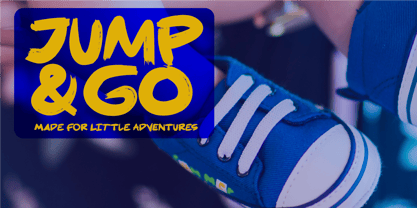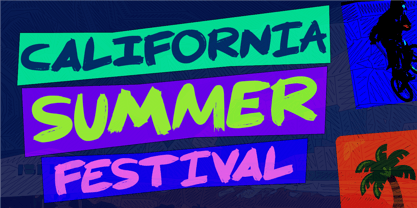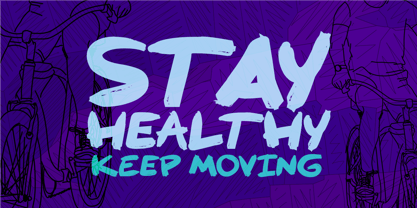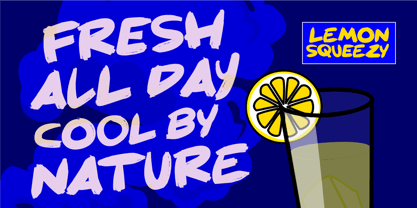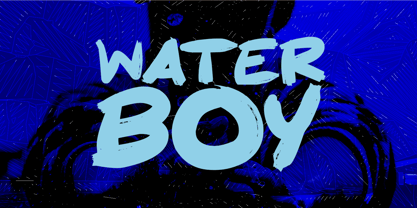
Waterboy
by Epiclinez
The Waterboy Font Family was designed by Aldy Sidik and published by Epiclinez. Waterboy contains 1 styles. More about this family
Waterboy is a bold and energetic display font that embodies a hand-painted feel, playful attitude, and vibrant personality. Its expressive strokes and dynamic shapes make it ideal for designs requiring a confident, youthful, and adventurous aesthetic. Drawing inspiration from summer days, surf culture, children's brands, outdoor adventures, streetwear, and the relaxed vibes of the West Coast, Waterboy excels in various applications. It is perfect for logos, apparel, posters, packaging, stickers, product branding, sports graphics, children's products, and social media designs. Use Waterboy for striking headlines, engaging slogans, vintage-inspired graphics, surf and skate branding, children's footwear, summer campaigns, adventure projects, and any design that benefits from a lively, handmade touch.
Designers: Aldy Sidik
Foundry: Epiclinez